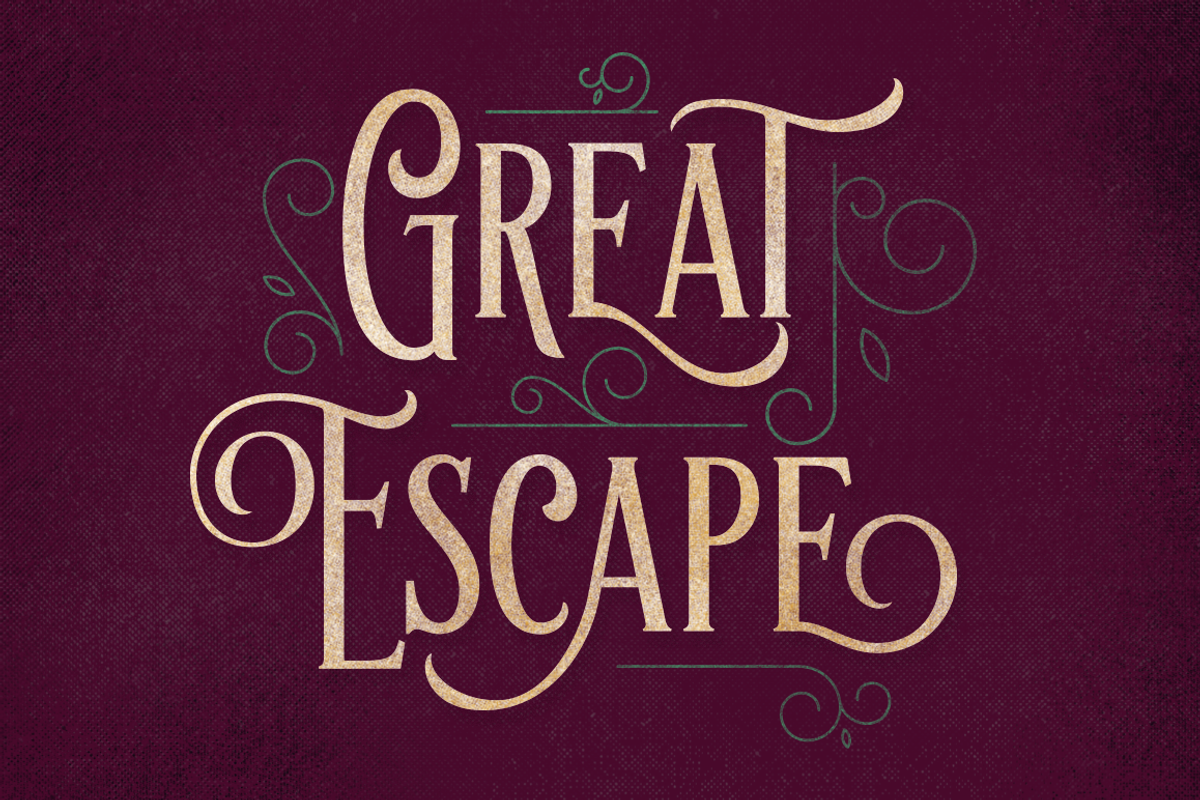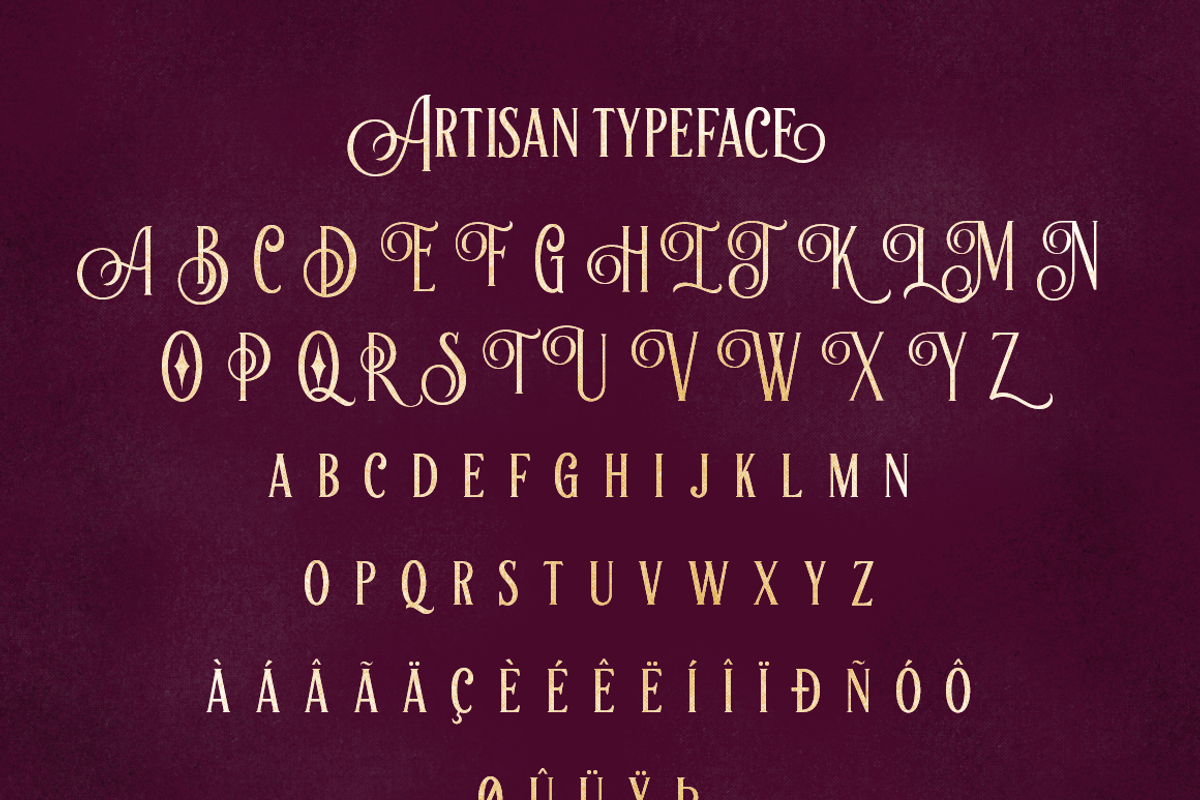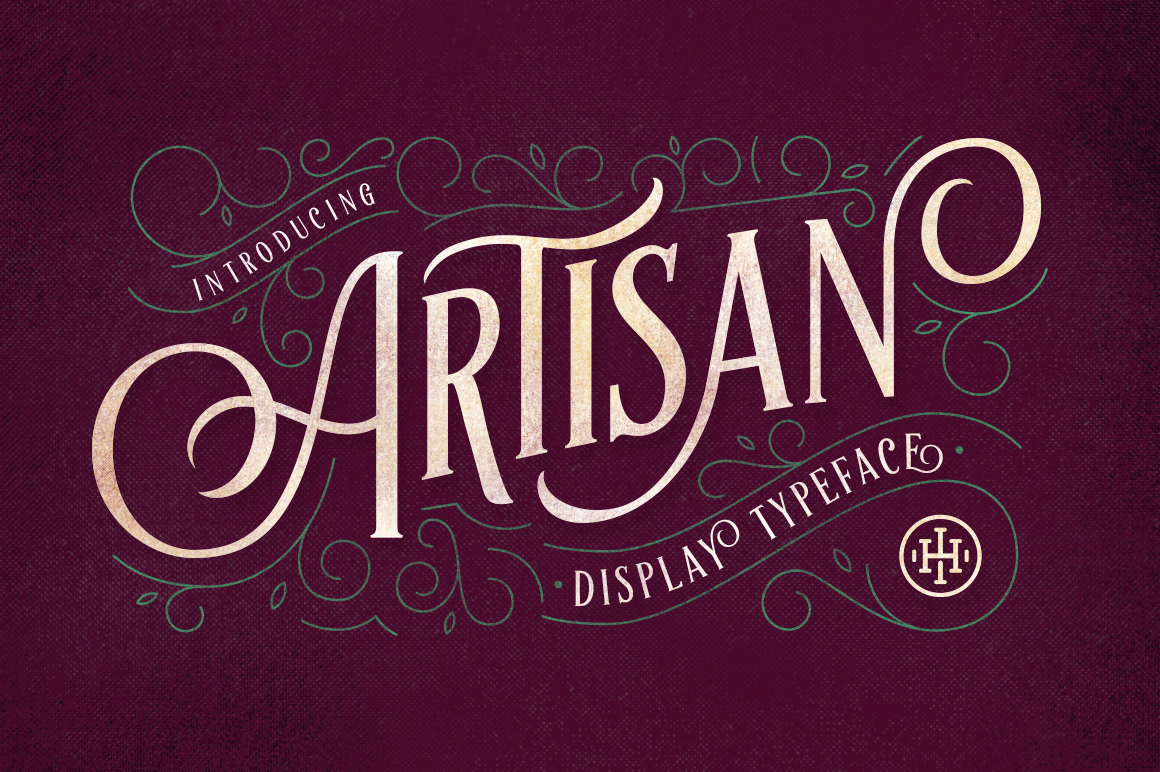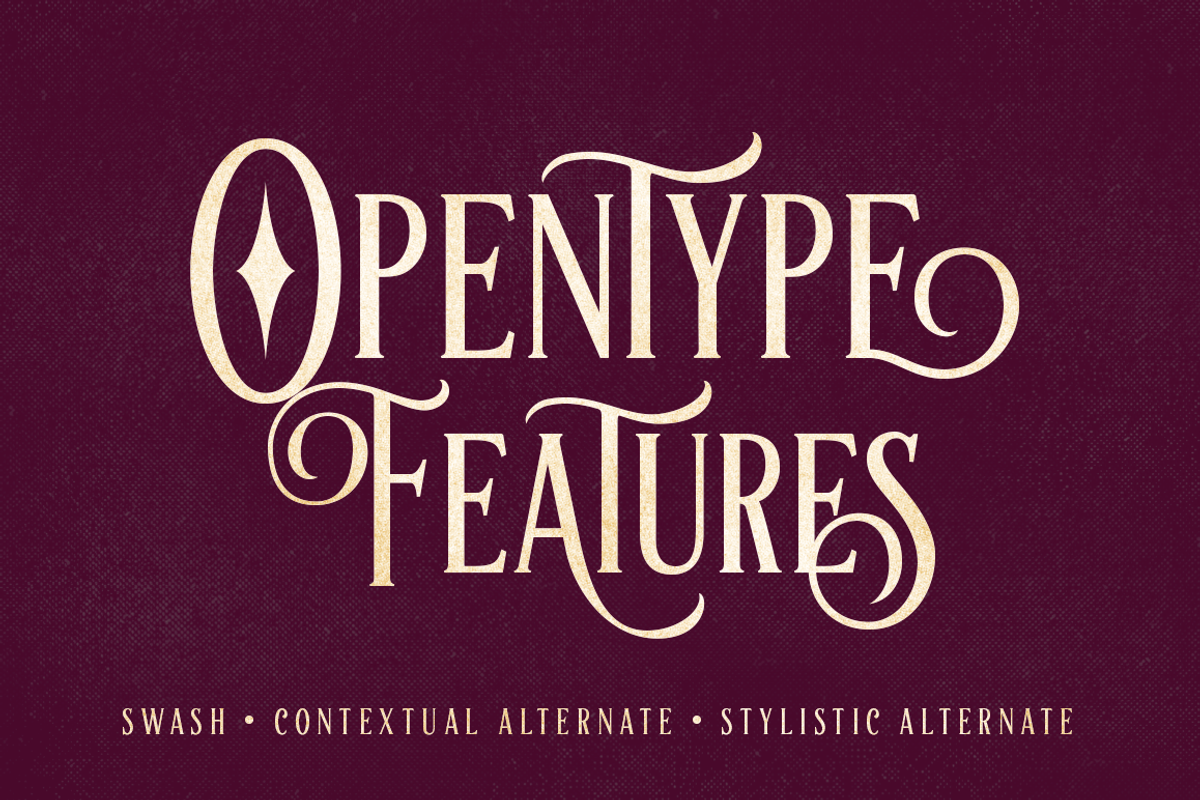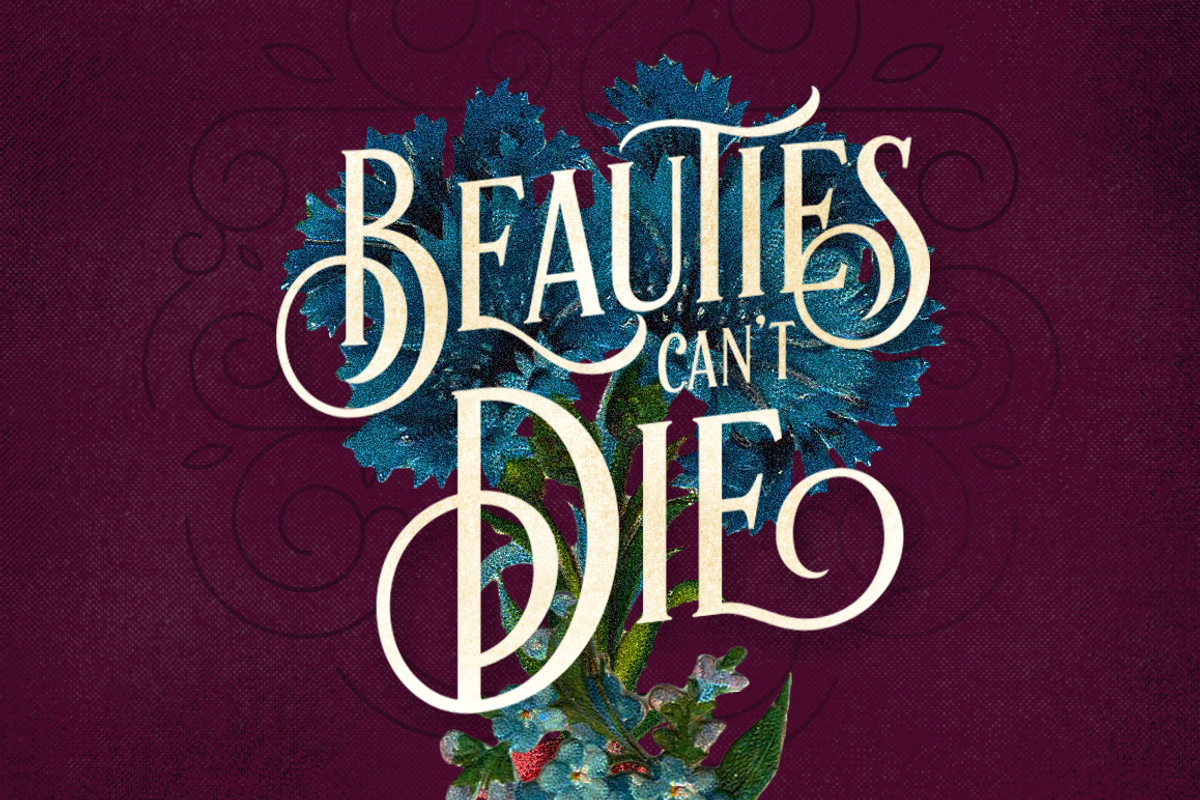
Artisan Display Typeface
Introducing new classic display typeface it's call Artisan Display. Allcaps font with classic style. OpenType features with Stylistic Alternates, Contextual Alternate and Swashin some characters that allows you to mix and match pairs of letters to fit your design, and also a touch of ornament makes this font look stylist. To access the alternat glyphs, you need a program that supports OpenType features such as Adobe Illustrator CS and Adobe Indesign. More information about how to access alternate glyphs, you can see it on this link ( http://goo.gl/oBLKpz ). You can use this font for various purposes.such as logo, wedding invitation, t-shirt, posters, lable, greetingcard, letterhead, book cover,